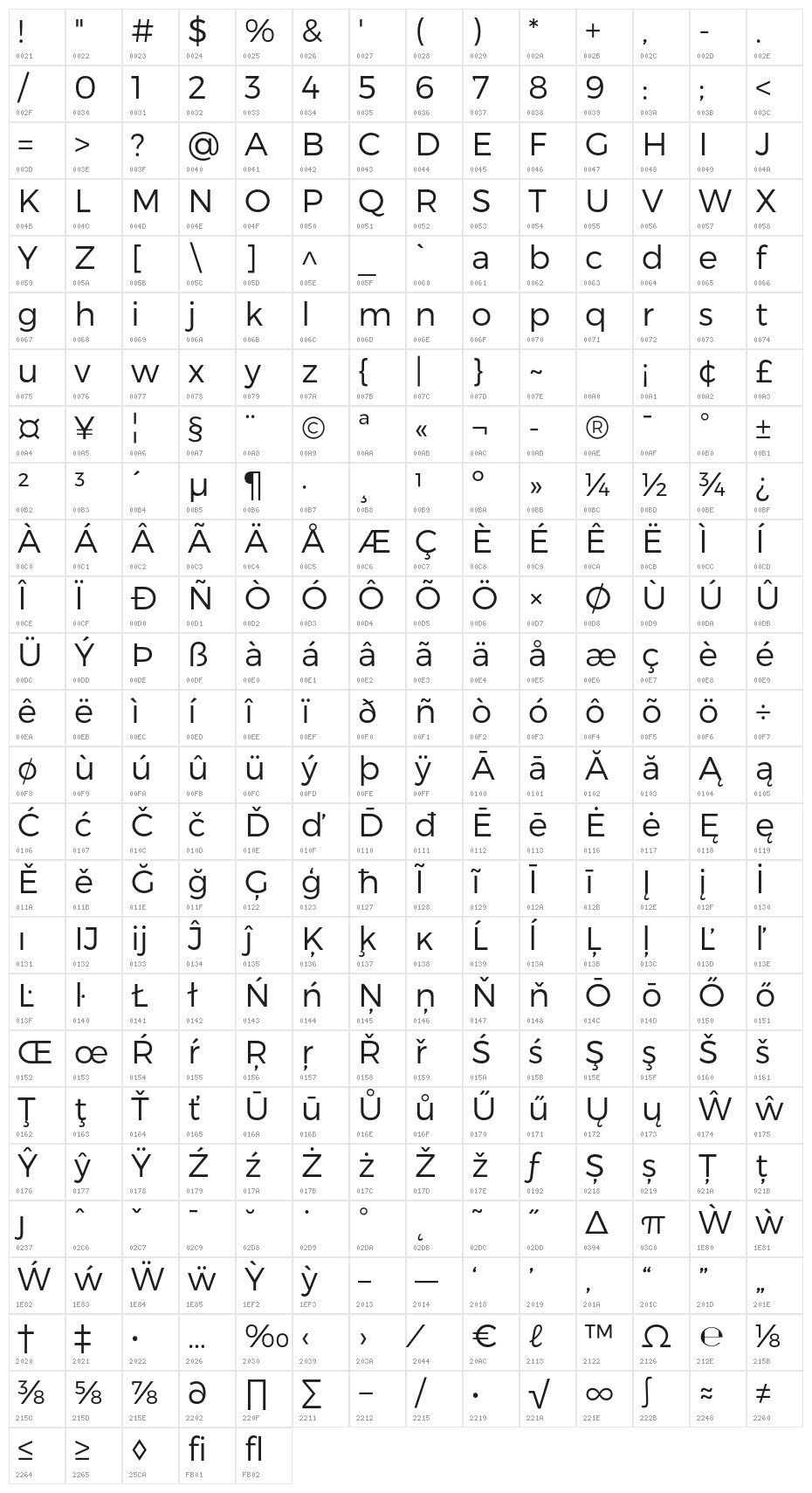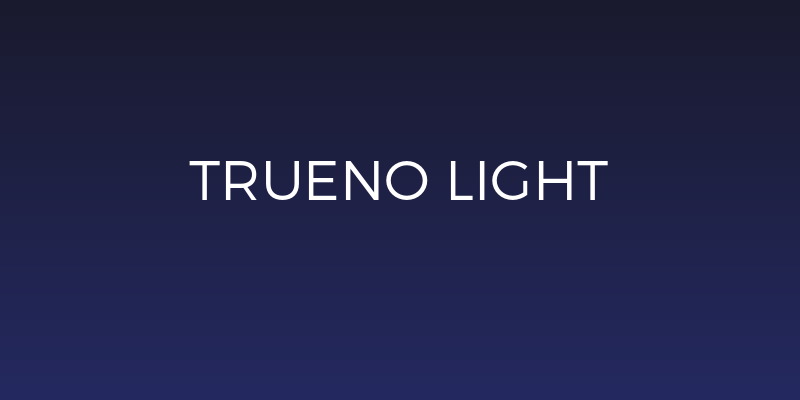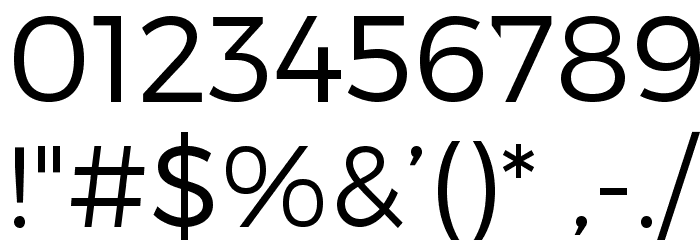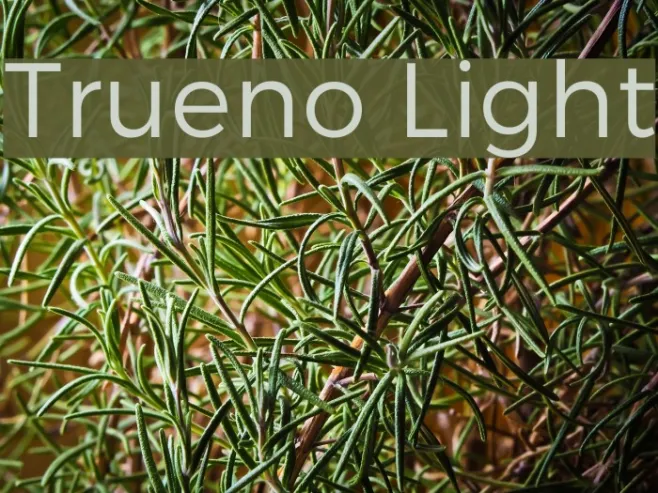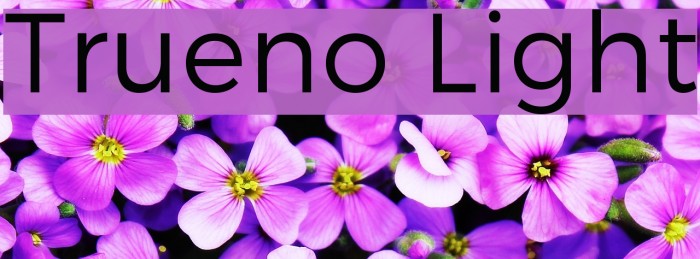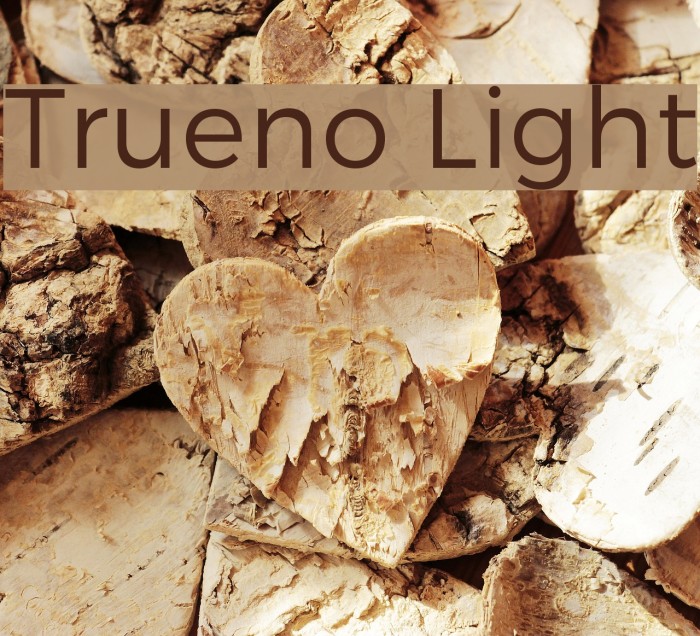
Trueno Light Font
Trueno Light Description
This font features a clean and modern sans-serif design with a focus on simplicity and readability. The characters are evenly spaced with a uniform stroke width, giving it a balanced and harmonious appearance. The rounded edges and minimalistic style contribute to its contemporary look, making it suitable for a wide range of applications. The font maintains clarity at various sizes, ensuring legibility in both digital and print formats. Its straightforward design makes it versatile for both professional and casual contexts.
| Proposed Projects | Ideal for branding, web design, corporate materials, and user interfaces. |